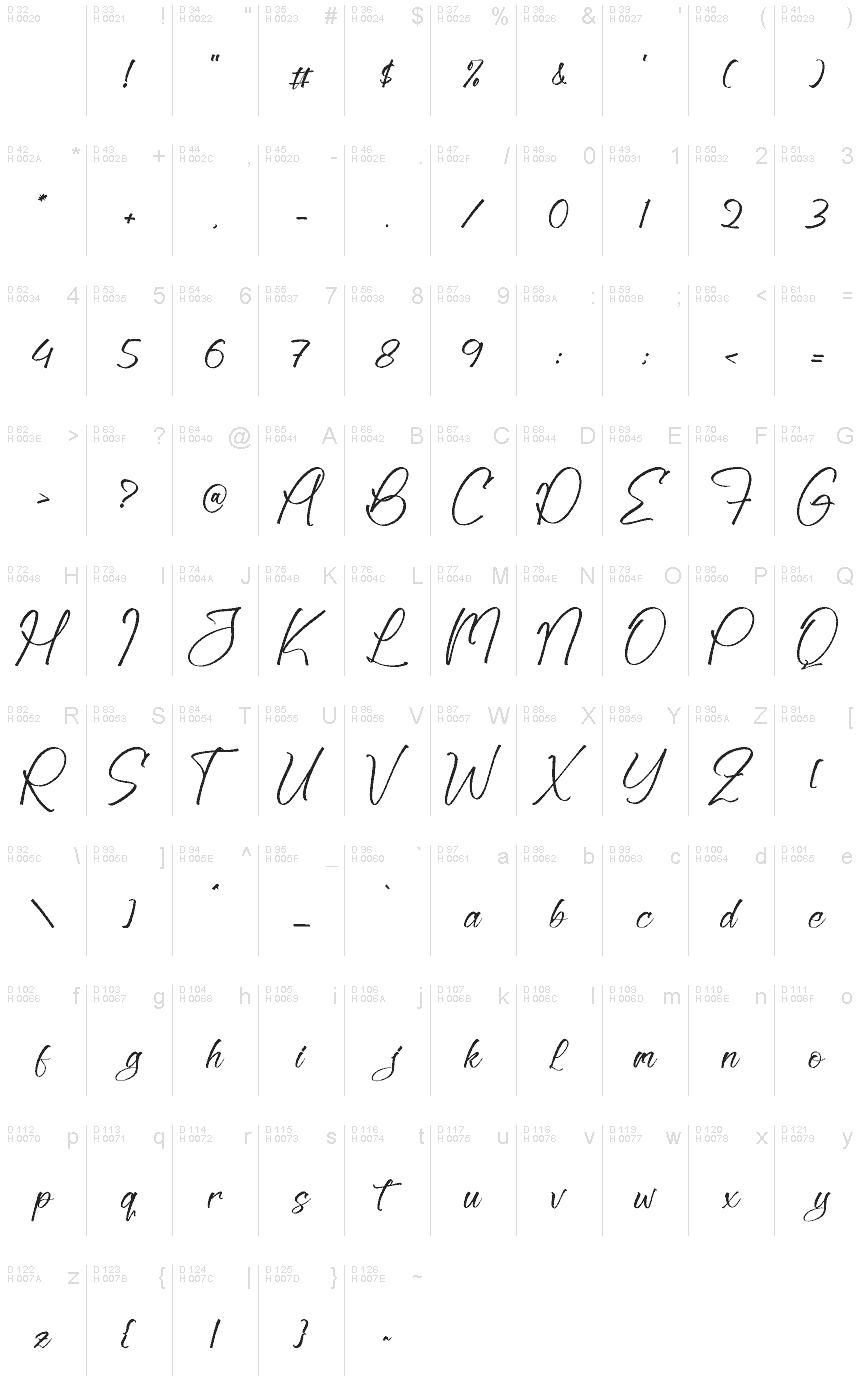
Ballmy Gettmorg
Ballmy Gettmorg font from Letterena Studios is a free handwritten font with fluid motion and vintage appeal. The elegant, sophisticated design has light lines that perfectly balance expressiveness and readability. Using it also allows every designer to add an artistic flair.